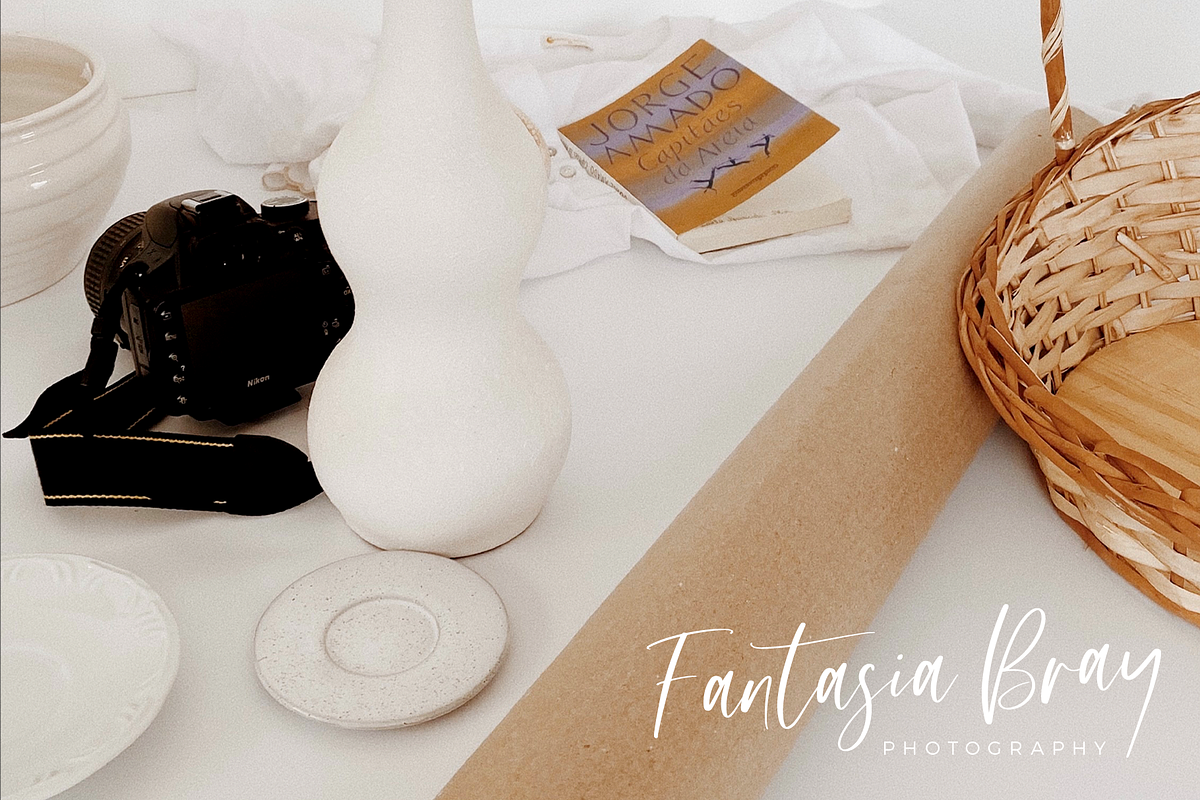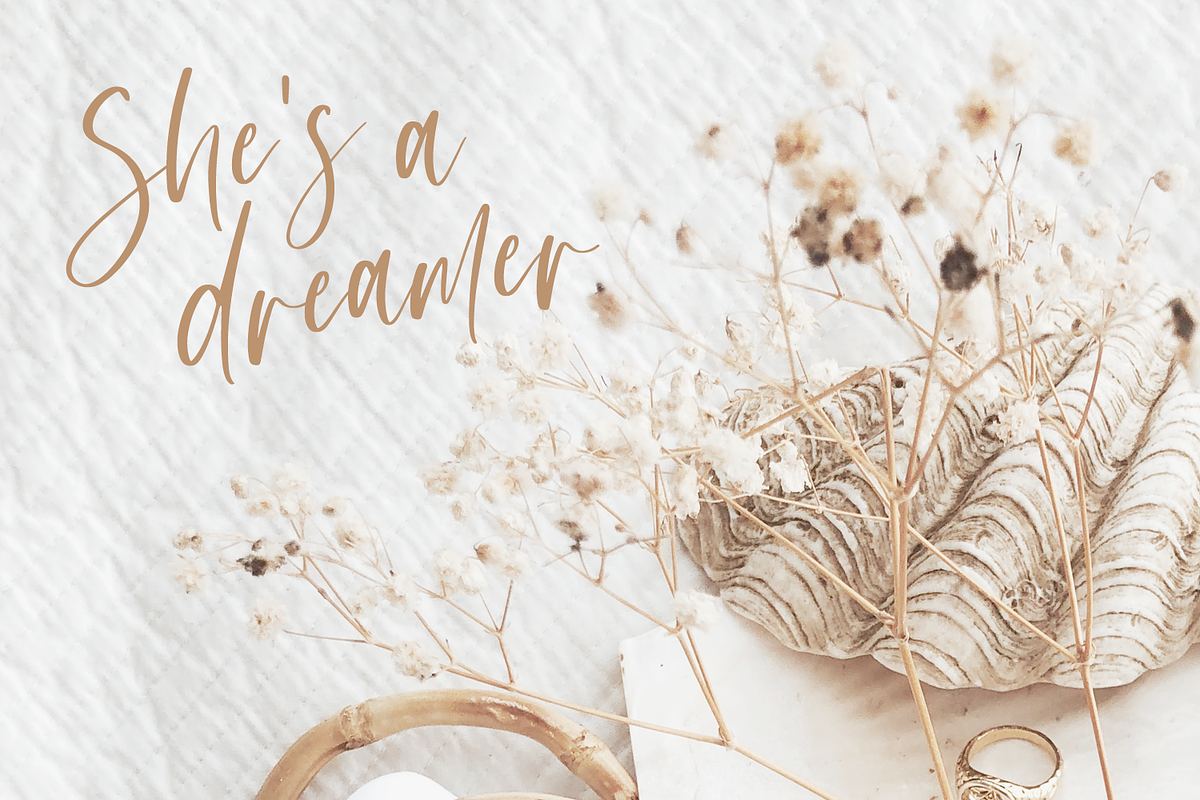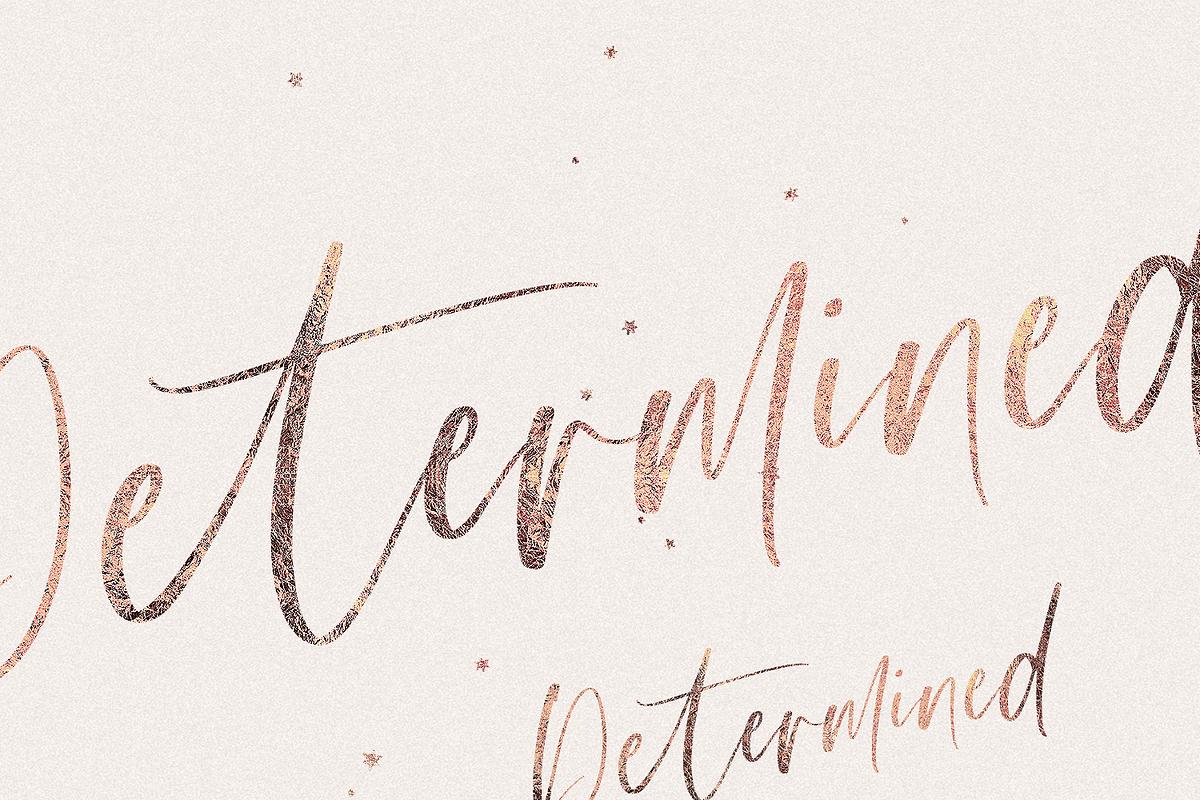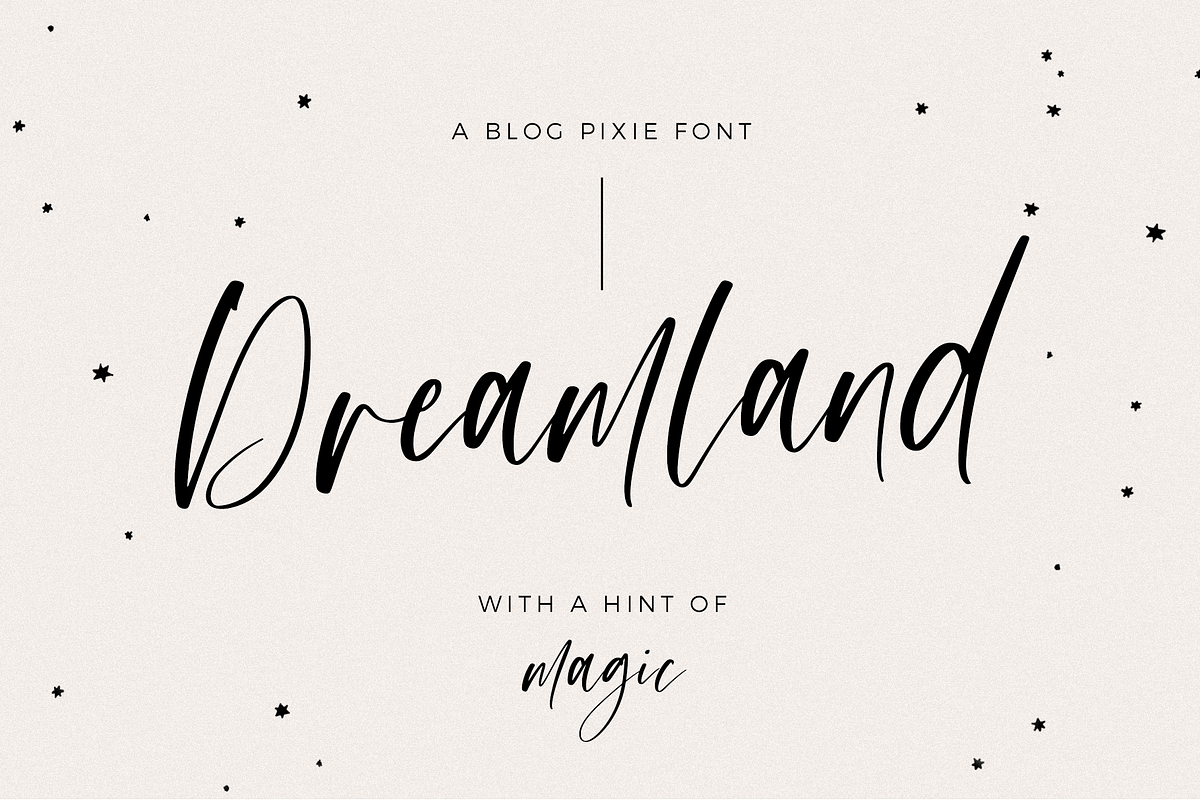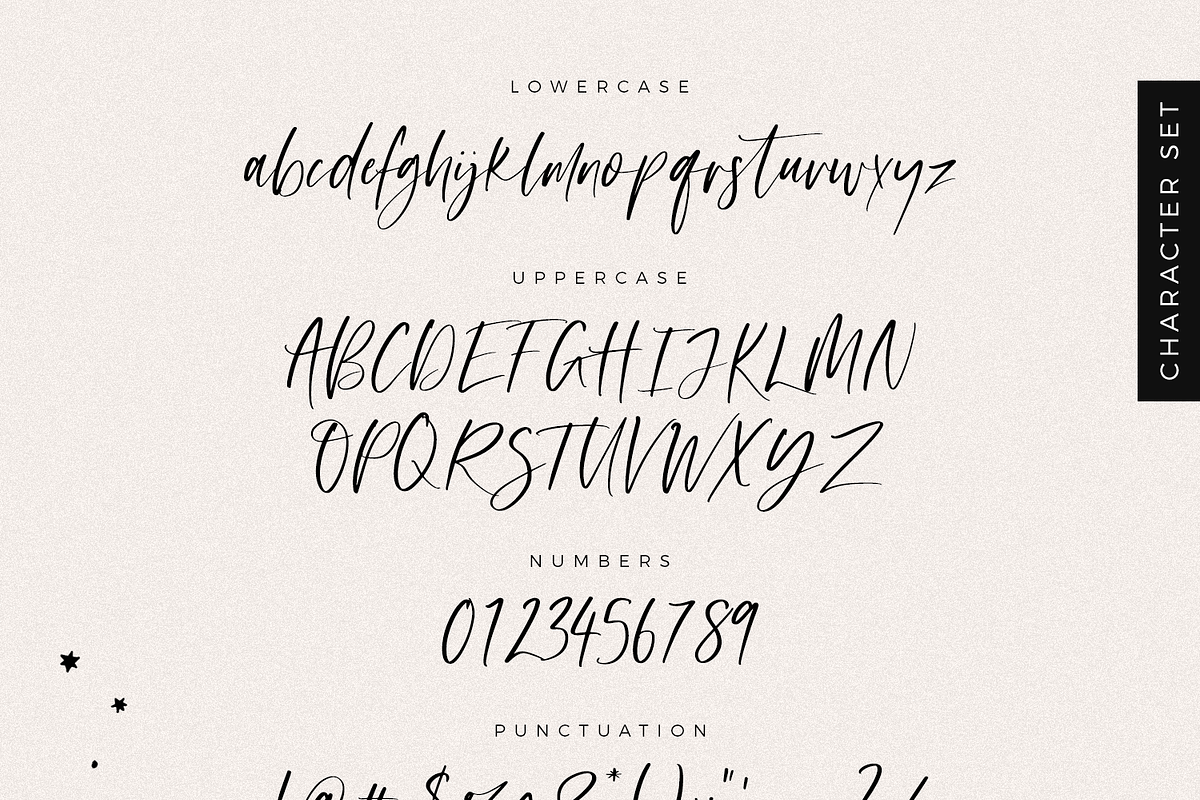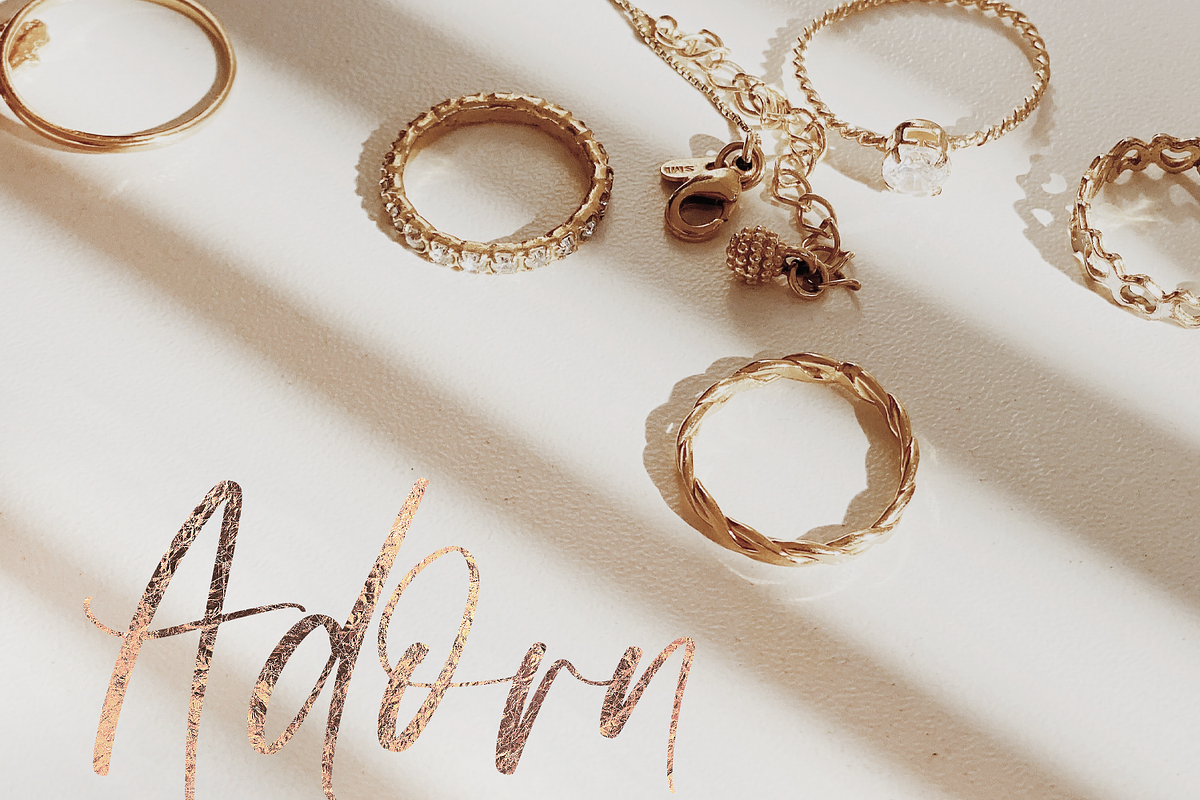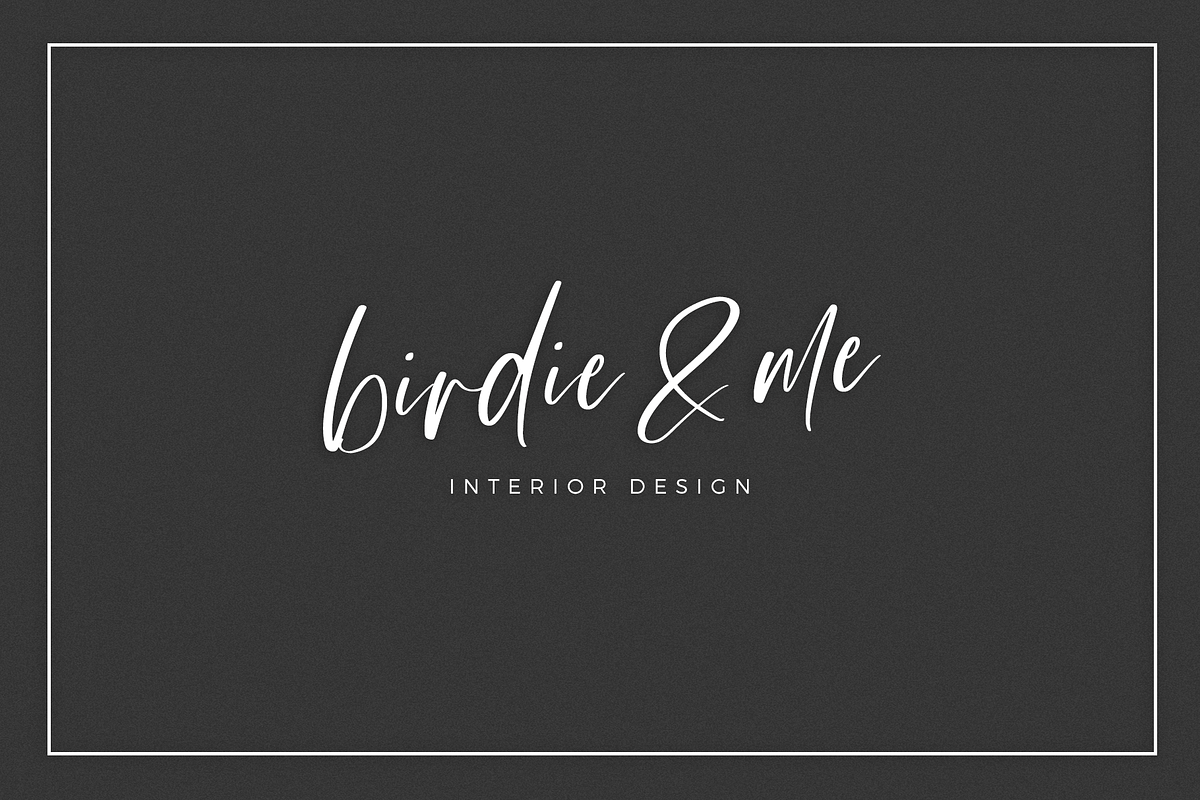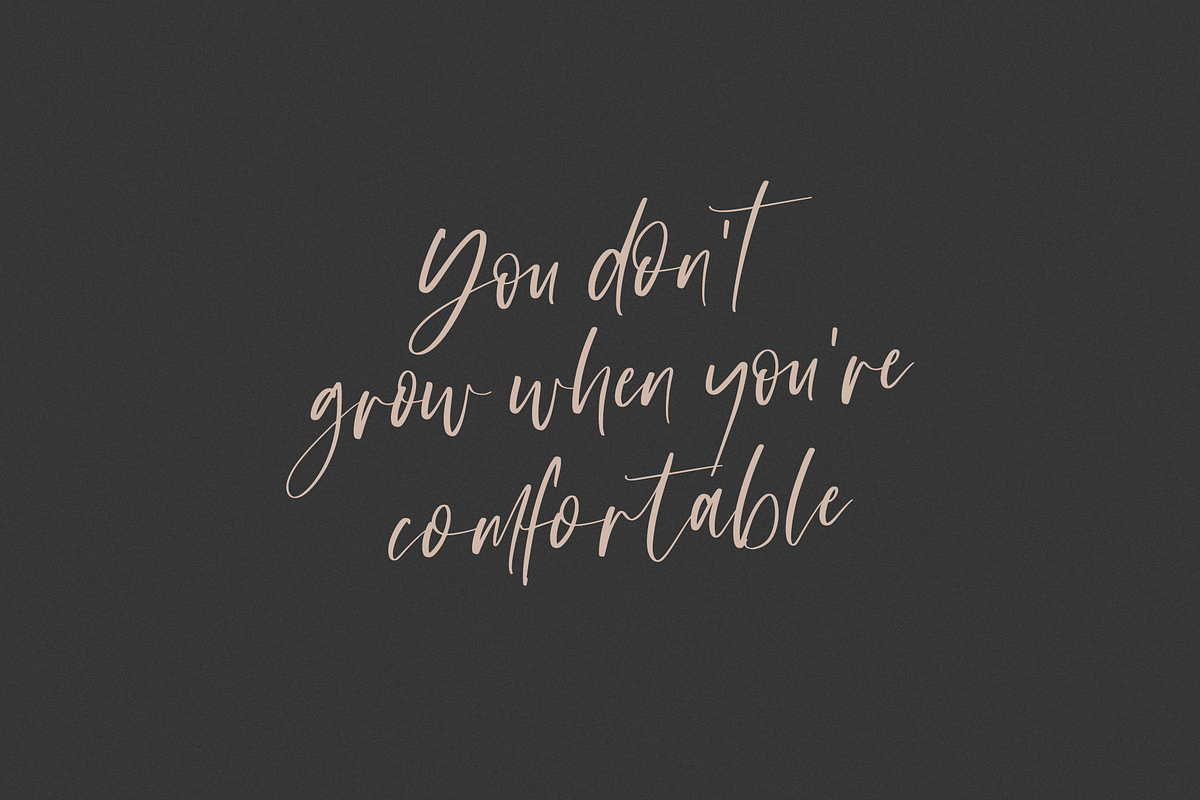
Dreamland Script Font
Dreamland script font by Blog Pixie is a stylish handwritten font with magical flair.
Use Dreamland script for quotes, invitations, stationery, print design, logos, magazine, eBooks and more.
Why Dreamland Script Font is worth a look
Dreamland Script Font by Design Pixie fits naturally into Branding, posters, packaging, typography.